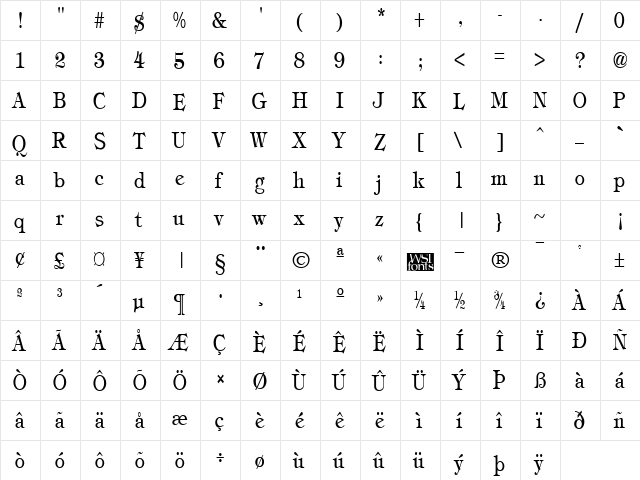
TimbrelCondensed Regular
Design Context for TimbrelCondensed Typeface
TimbrelCondensed offers clean, dependable letterforms without strong stylistic allegiance, making it a practical choice for designers who need flexibility. The condensed width makes it efficient for tight spaces without sacrificing legibility.